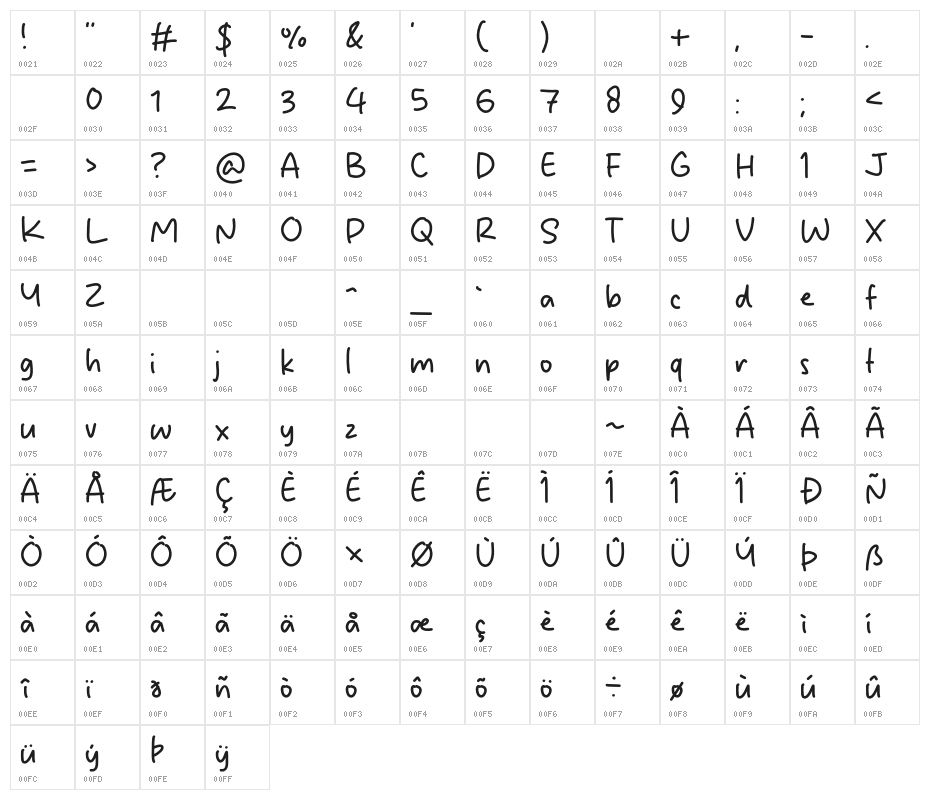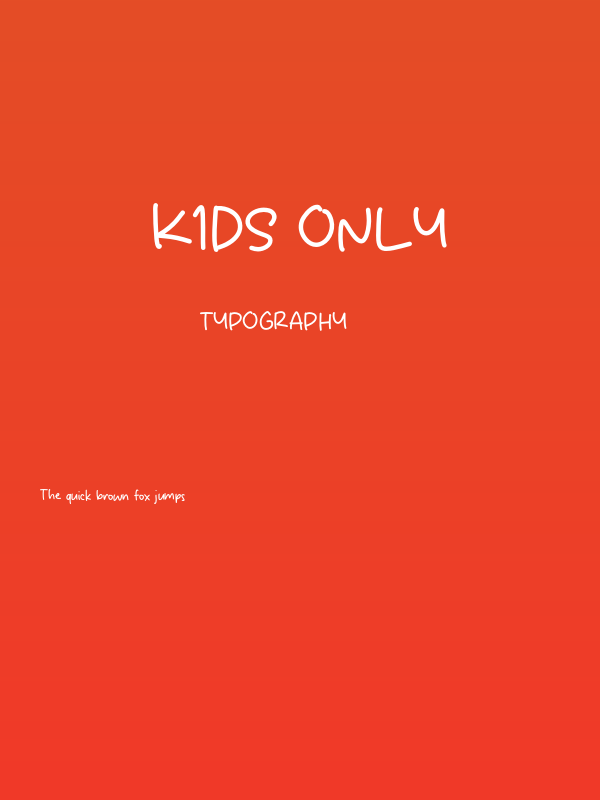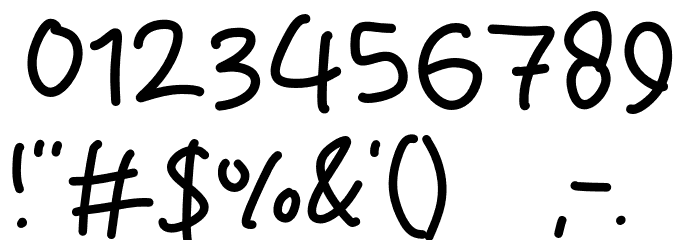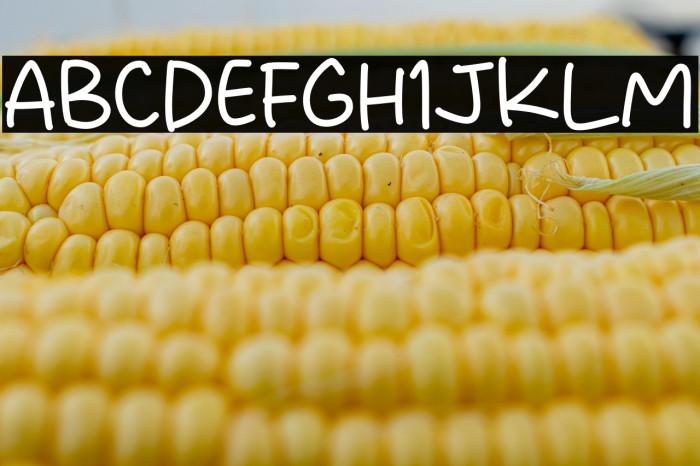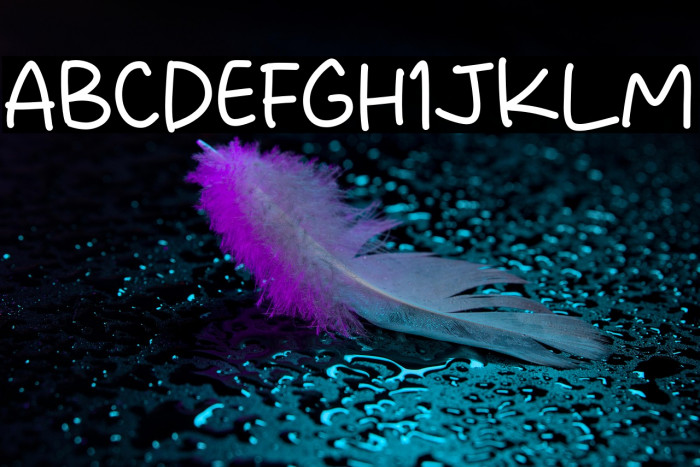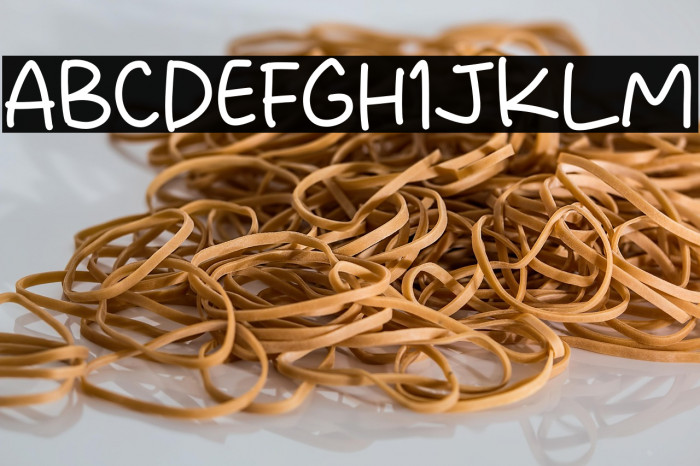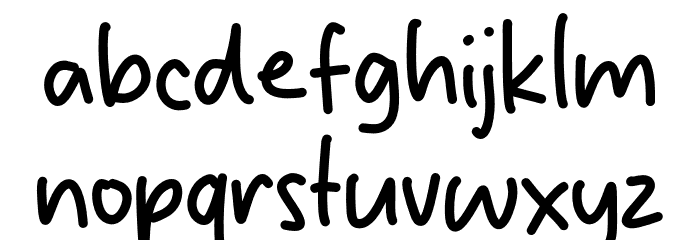
Kids Only Font
Kids Only Description
This playful and whimsical font captures the essence of youthful handwriting. The characters are rounded and slightly irregular, giving them a friendly and approachable feel. The strokes are consistent in width, contributing to a casual and informal appearance. The font maintains a balance between readability and charm, making it suitable for projects aimed at children or those seeking a lighthearted touch. The numerals and special characters follow the same playful style, ensuring a cohesive look across all text elements.
| Proposed Projects | Ideal for children's books, educational materials, playful branding, and greeting cards. |